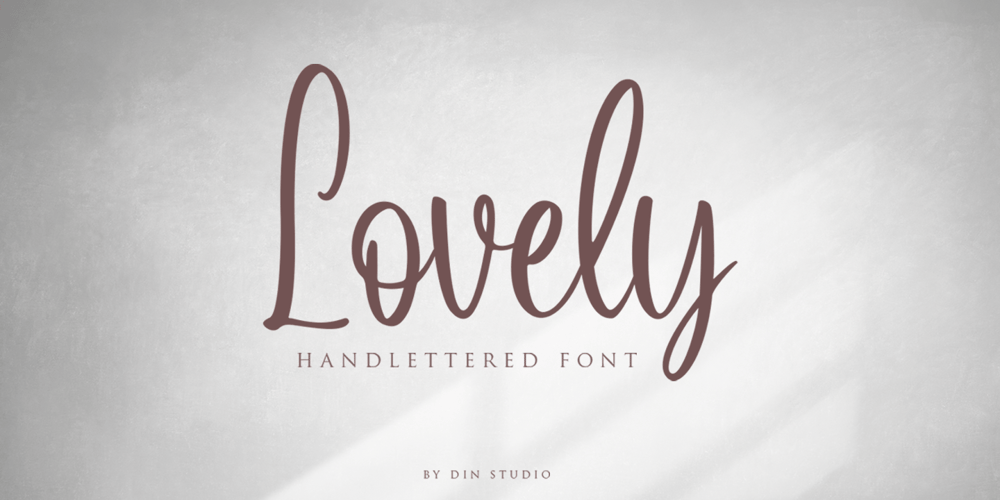
Lovely
Lovely font
Lovely Font Family was designed by Donis Miftahudin and published by Din Studio. Lovely contains 1 styles and family package options. Need a lovely font for your project design? Lovely Script is the right answer! Lovely Script is suitable for many projects design especially for a branding project, wedding, and lettering. Features: Multilingual Support Easy to use Thanks for visit my blog and happy design!